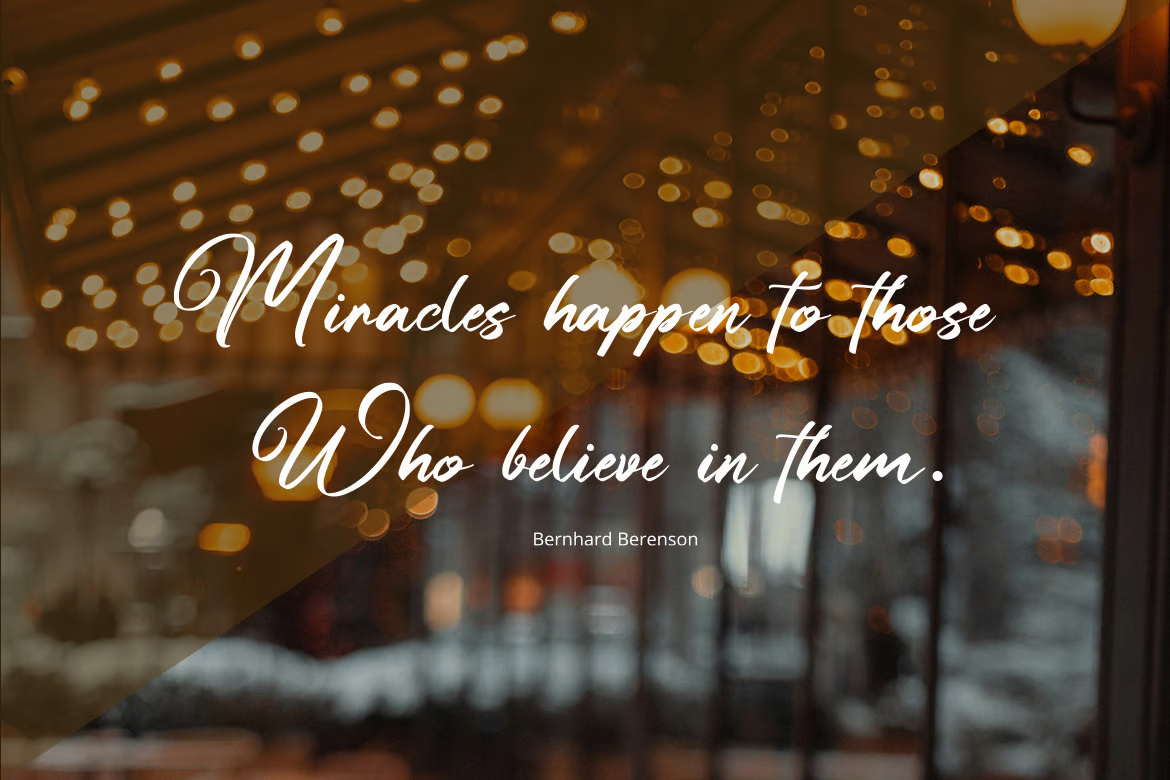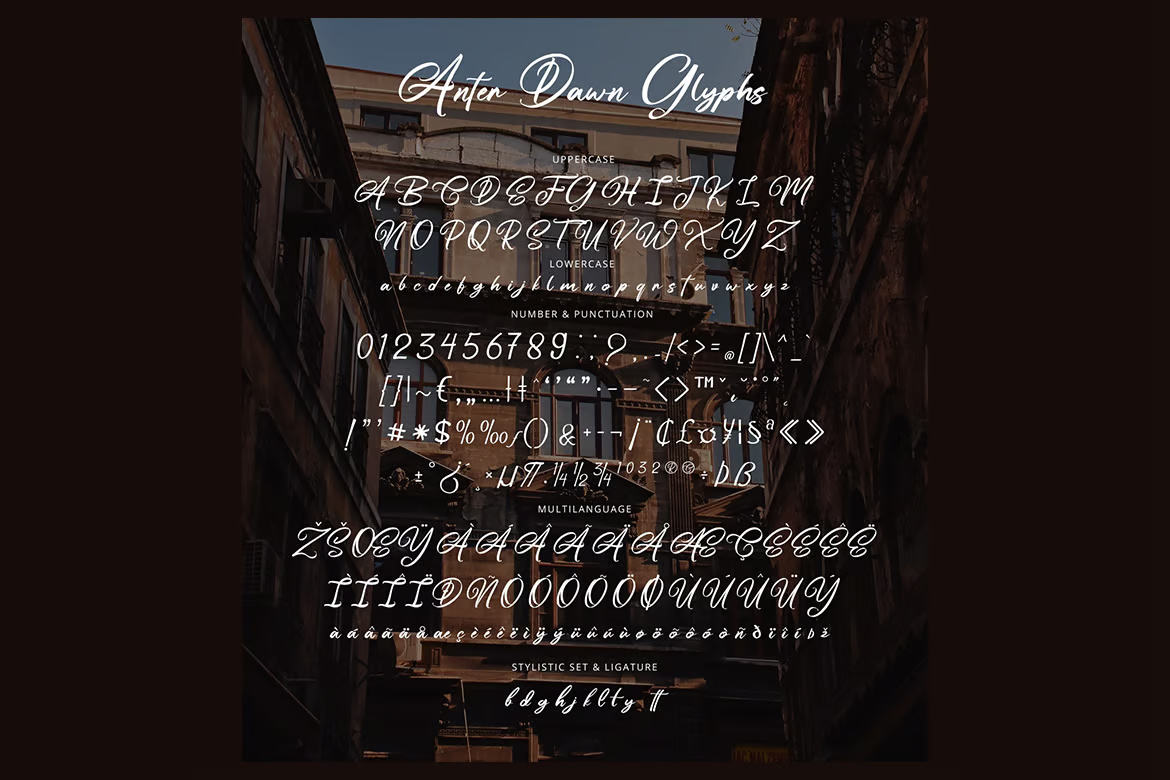
Anter Dawn – Script Font
Anter Dawn is a stylish script font that blends modern calligraphy with the graceful flair of elegant handwriting. With flowing curves, delicate strokes, and a refined, contemporary rhythm, this font brings a sense of charm and sophistication to any design. Perfect for wedding invitations, branding, logos, social media graphics, and other creative projects that call for a personal, handwritten touch.
Anter Dawn Modern Script Font
Anter Dawn - Script Font